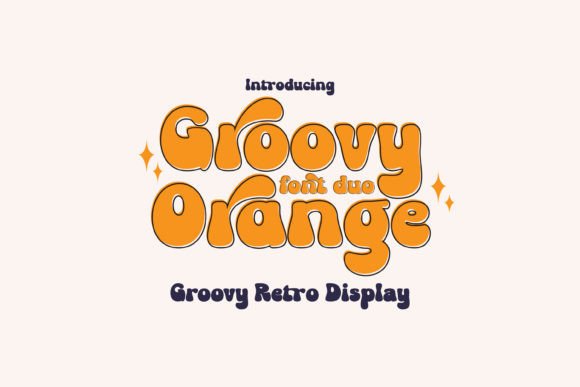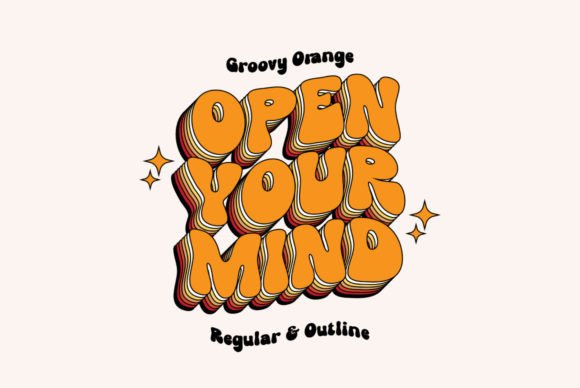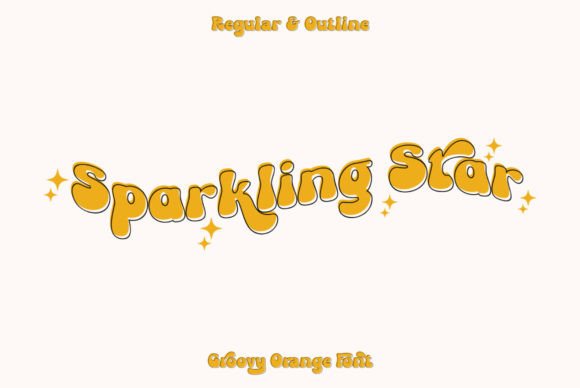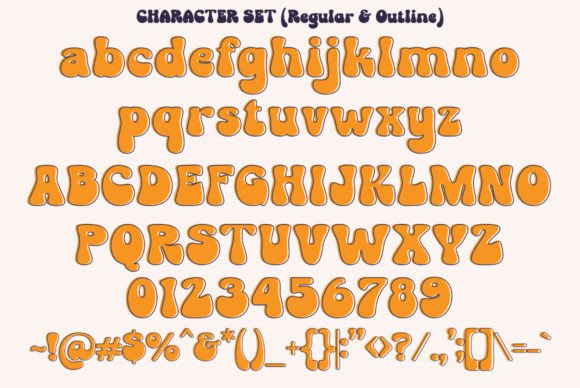
Groovy Orange Font: A Bold Retro Display for Playful Designs!
About the Groovy Orange Font
Explore the possibilities with Groovy Orange Font, a font that offers both beauty and functionality. Groovy Orange feels playfully nostalgic and delivers an incredible vintage retro aesthetic. Use this display font to add that special retro touch to any design idea you can think of! Masterfully designed to become a true favorite, this font has the potential to bring each of your creative ideas to the highest level!
Groovy Orange is ideally suited for headlines, logos, short taglines, and posters where its playful retro style can make a strong visual impact. It excels in projects needing a vintage feel, such as album art, apparel designs, or branding for businesses with a retro aesthetic. However, its unique character makes it less suitable for body text or UI elements, where readability over extended lengths is crucial.
Its bold, energetic personality pairs well with clean sans-serif fonts like Futura or Helvetica for a balanced contrast, or with a more delicate script font like Pacifico for a touch of vintage charm. For a more modern feel, consider pairing it with a geometric sans-serif like Bebas Neue. Avoid pairing it with other highly decorative or overly ornate fonts, as this could create visual clutter.
The font’s overall mood is upbeat and nostalgic, perfect for brands aiming for a fun, retro-inspired identity. It projects a sense of warmth and approachability but lacks the seriousness needed for corporate or formal applications.
Groovy Orange Font Usage Examples
Groovy Orange Font Example